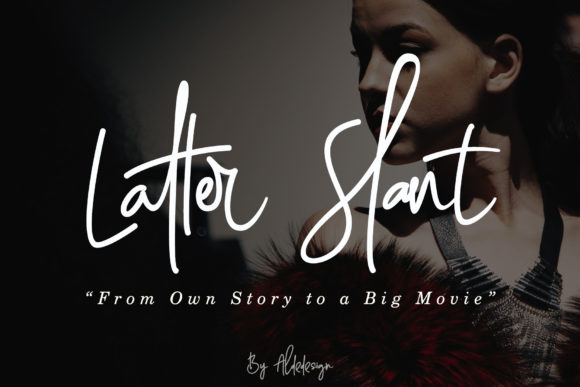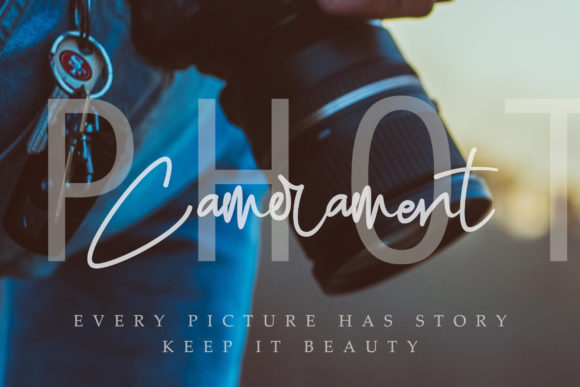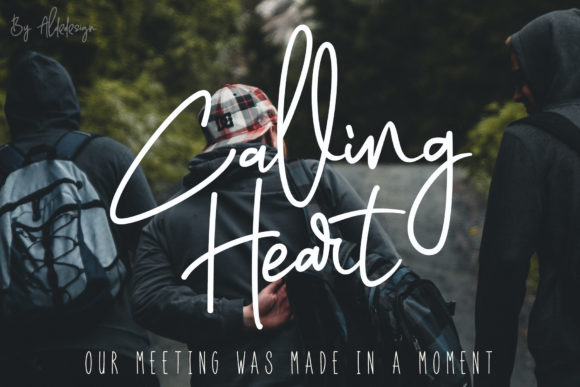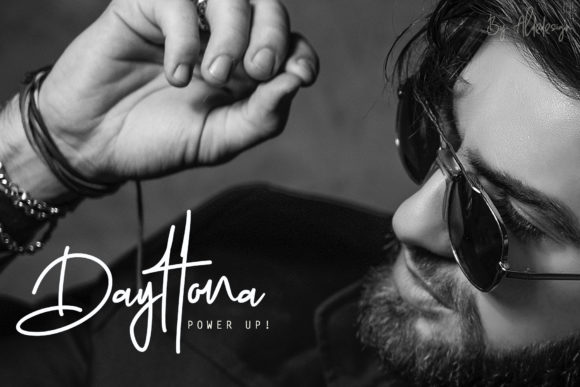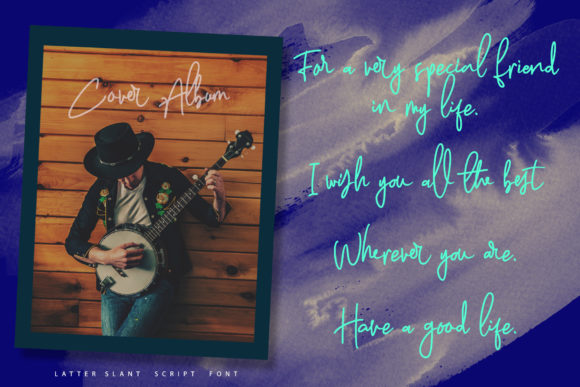
Latter Slant Font
About Latter Slant Font
The Latter Slant is a font with an awesome and classy taste. It has a natural, yet elegant touch and is absolutely easy to use.
It’s a great choice for watermarks on branding, wedding stationary, photography, signatures, logo designs, album covers, business cards, quotes, and much more!